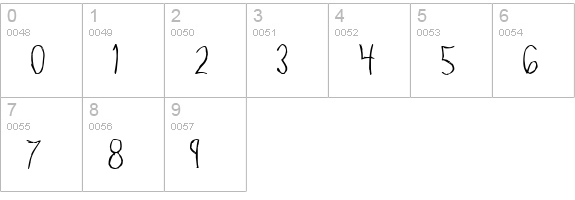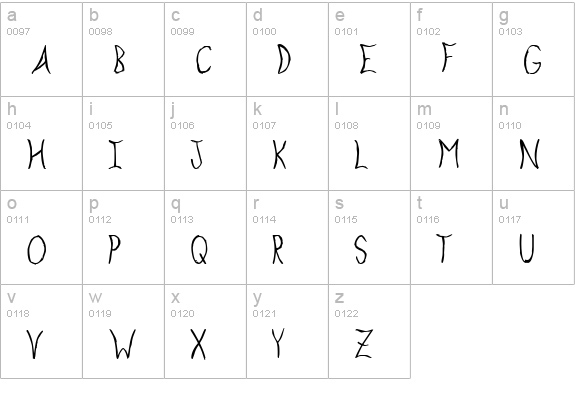
Exploding Sheep Font Details
The Exploding Sheep font is a playful and quirky typeface that is sure to add a fun touch to any design project. With its unique and eye-catching design, this font is perfect for adding a touch of whimsy to posters, invitations, and more. The exploding sheep font is freely available to download at FontsMarket.com, allowing you to easily incorporate this charming font into your creative projects. Whether you're looking to add a playful twist to your designs or simply want to stand out from the crowd, the Exploding Sheep font is sure to make a statement. Download it today and let your creativity soar!